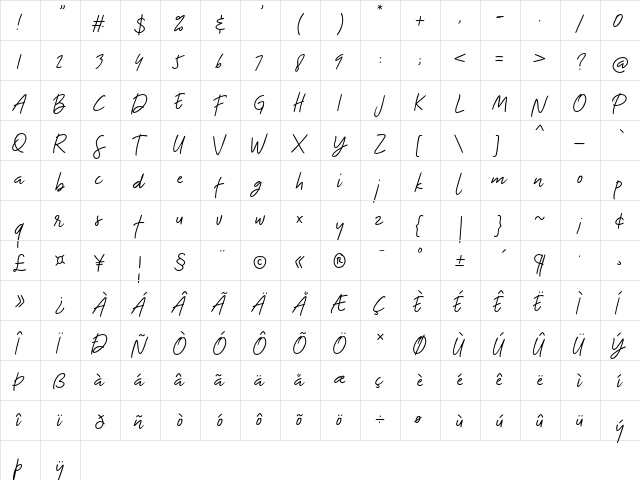
The Bouquet List Regular
Design Context for The Bouquet List Typeface
The Bouquet List is a composed and adaptable typeface that performs quietly and consistently across a wide range of design contexts.